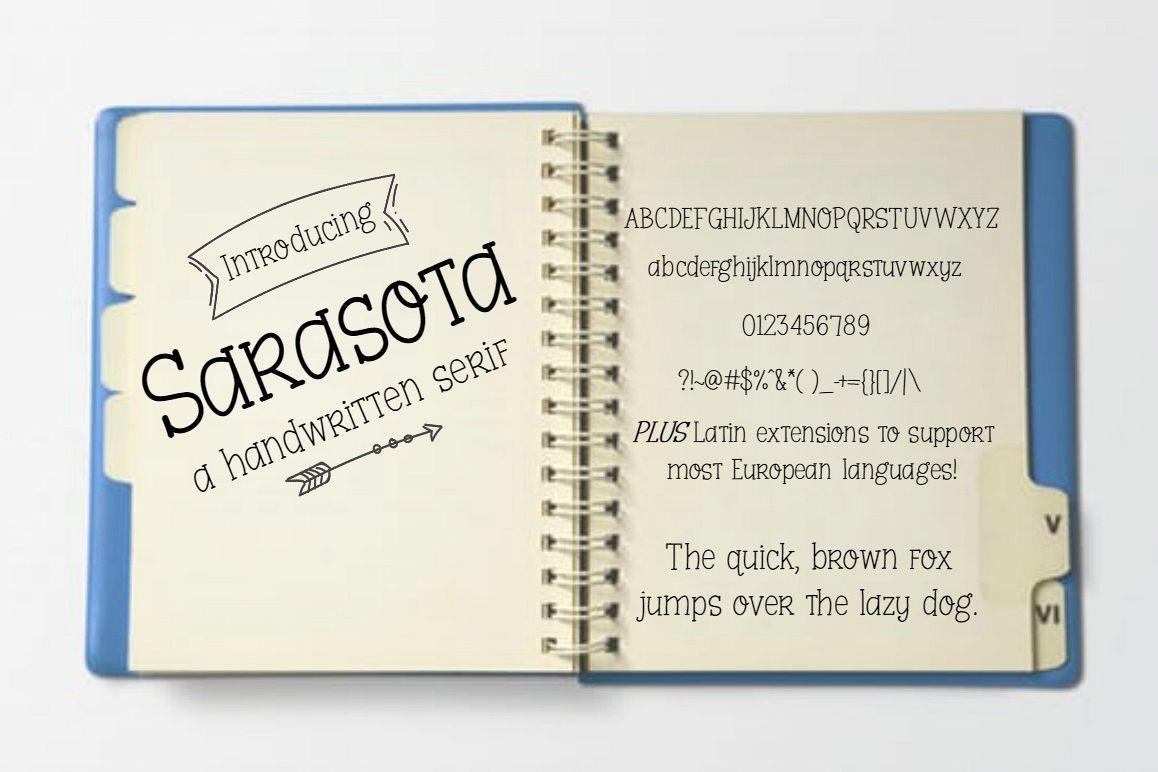
Sarasota
Sarasota is a unique handwritten serif font that is perfect for many designs and it includes Latin extensions to support most European languages.